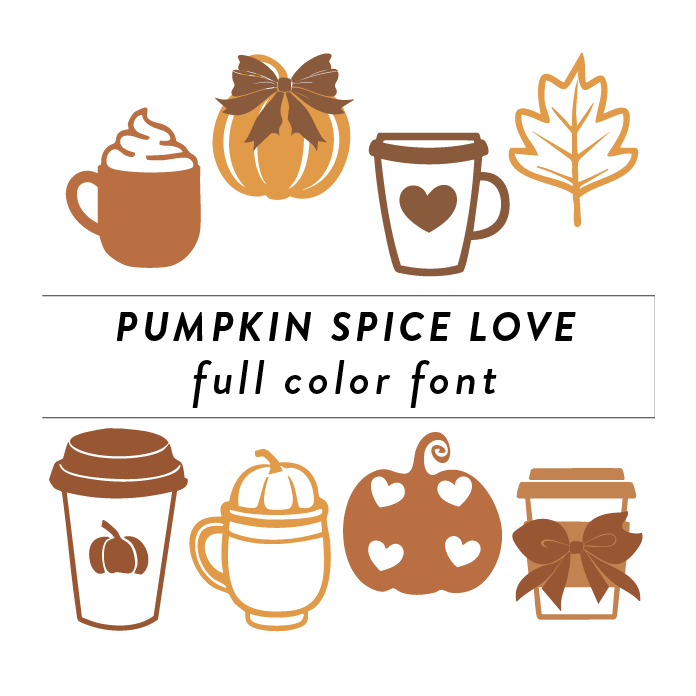
Pumpkin Spice Lover Full Color Font is a festive and vibrant font design perfect for Autumn and Thanksgiving projects. Featuring rich hues of orange, brown, and green, this font captures the essence of the season. Its playful and whimsical style adds a touch of fun to any design. Perfect for the pumpkin spice lover!